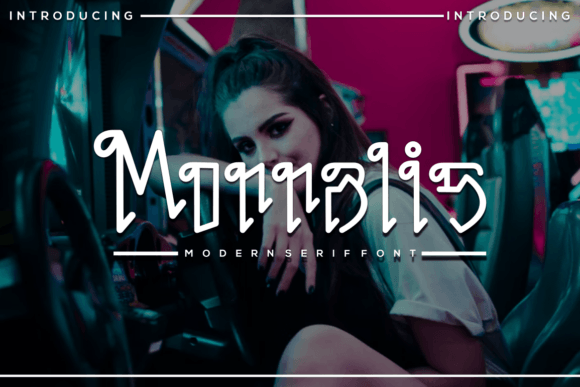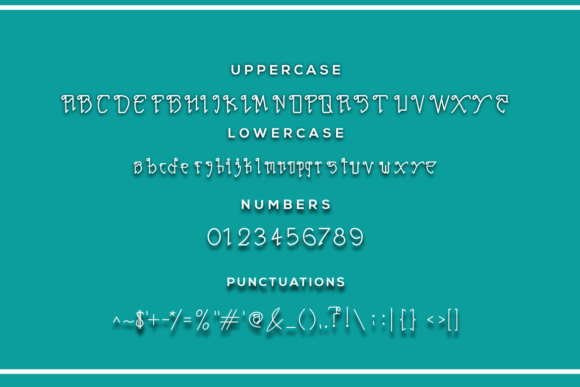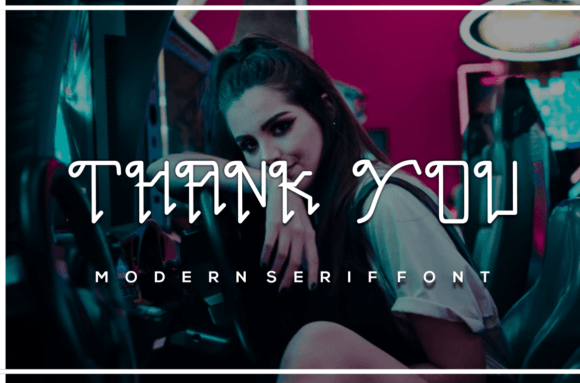
Introduction to Monnalis Font
Monnalis is an eccentric and unique serif display font.
Why Choose Monnalis Font?
Monnalis Font offers exceptional quality and versatility, making it a valuable addition to your design toolkit. Whether you’re creating for personal projects or commercial use, Monnalis Font delivers professional results.